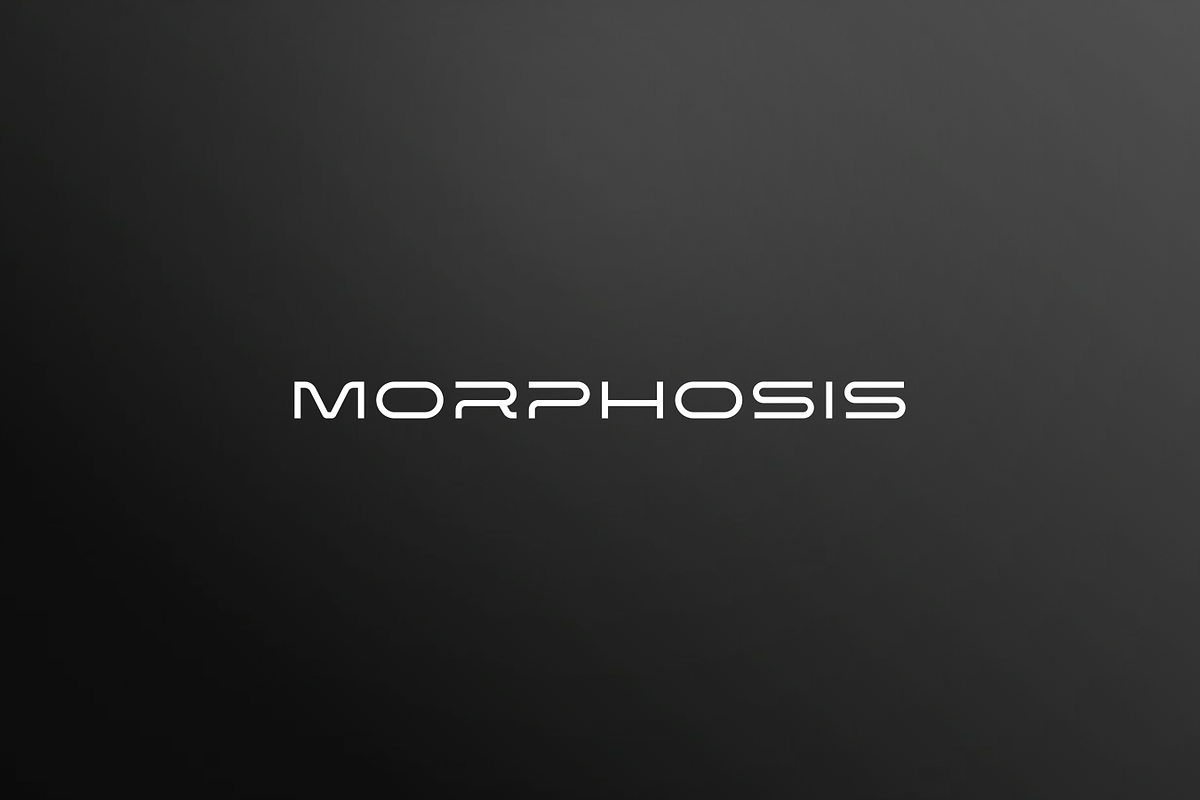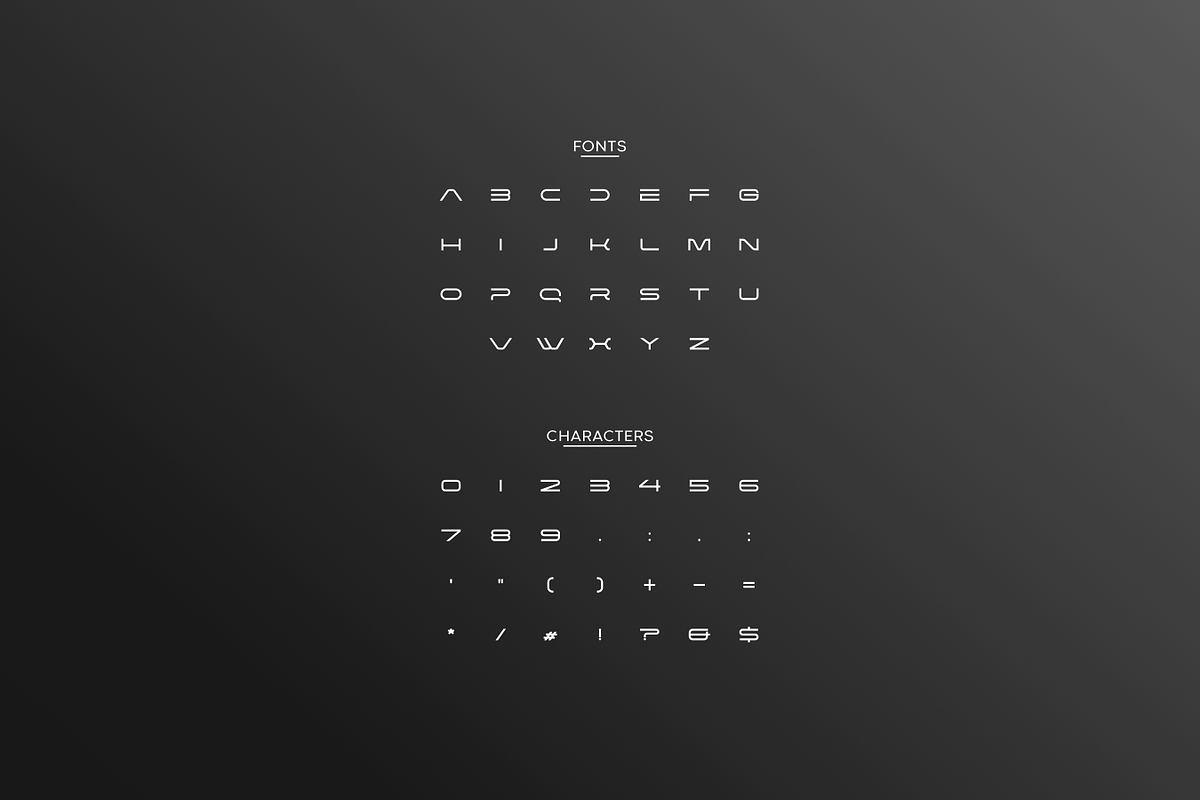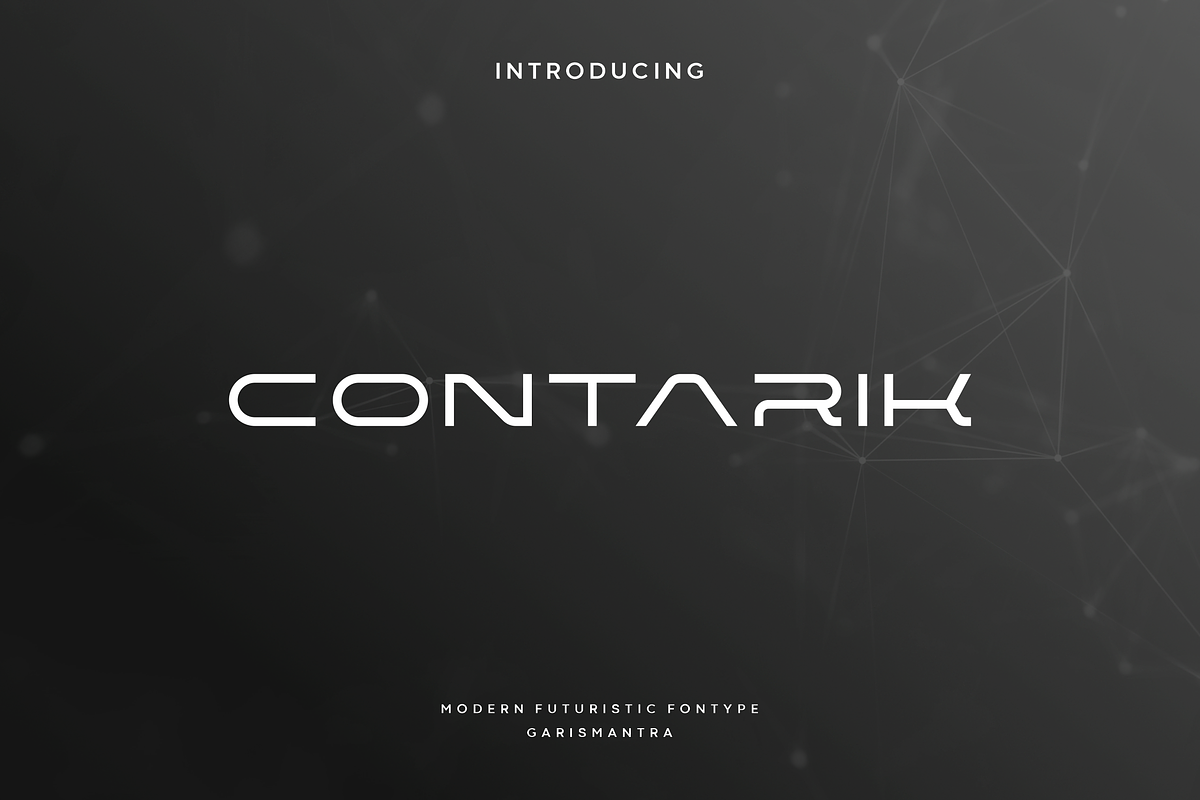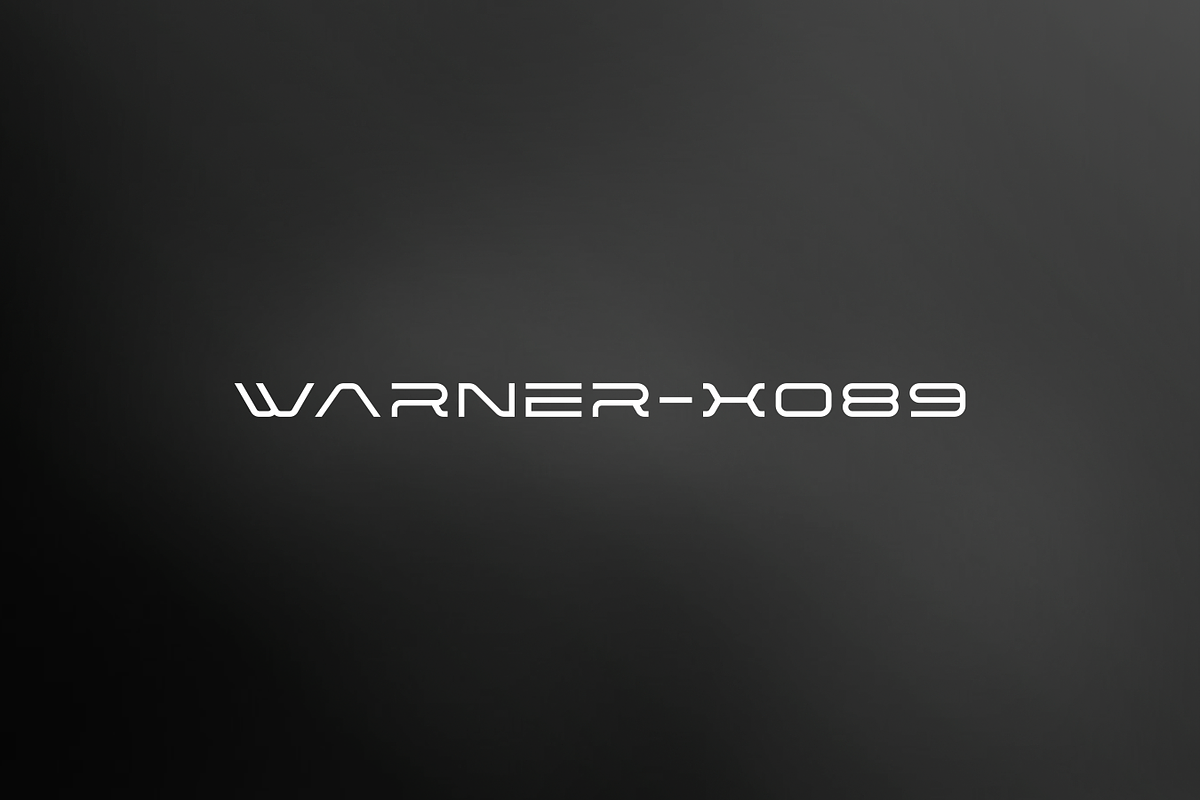
Contarik
Check out the latest fonts that create a futuristic, sophisticated and elegant hi-tech atmosphere and style. It looks great as header, tittle and as text both, use this font in your various projects. You can this font for in fields technology, like robot & android, hi-tech, future, virtual reality, outer space, and many others. Use this font for your futuristic modern looking designs as well as your own unique designs!